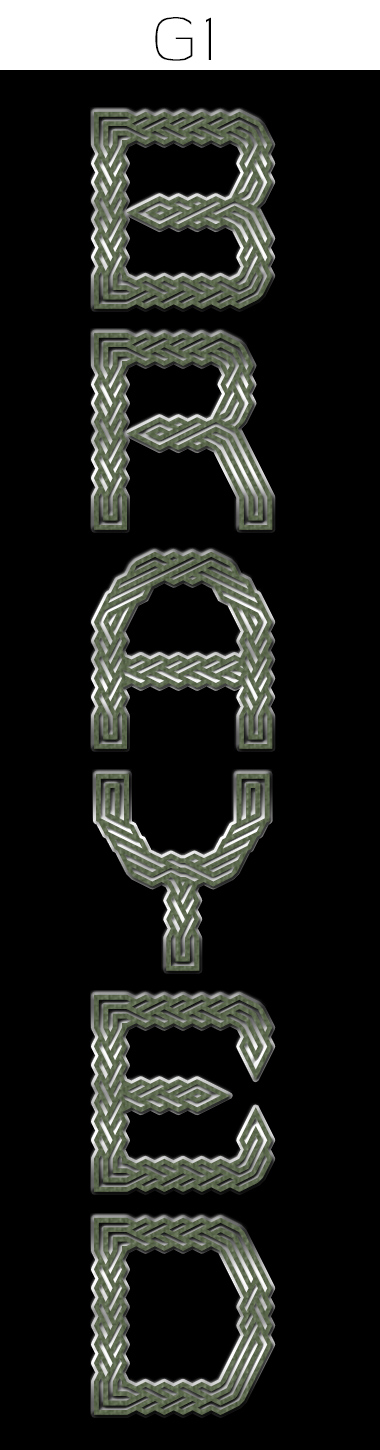
• Day 7. Inline Comp Day. Entry #2.
I'm loving it!
The exquisite detail shows up so well in the sample.
A Wow-struct.
What a brilliant work. From the very start of the competition I expected entries of decorative inline, such as with braids, Celtic knots, or similar patterns. I've planned to make such entry myself, but the time limit made me focus on one valid entry. In this perspective, it is a great satisfaction to see your work in the competition: it brings another colour to the already broad spectrum of designs. 10/10
this is so brillant 10
you still got it, man. very nice. good luck.
Congratulations! FontStruct Staff have deemed your FontStruction worthy of special mention. “G1 Brayed” is now a Top Pick.
good
Wow! Awesome!You must work so hard to make this!But I can't download it :(
woooooooooo very nice
supar